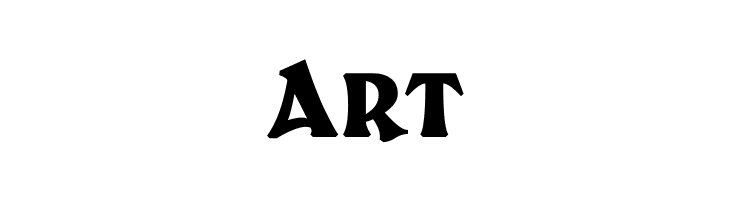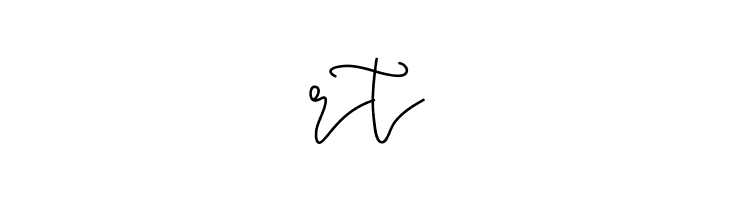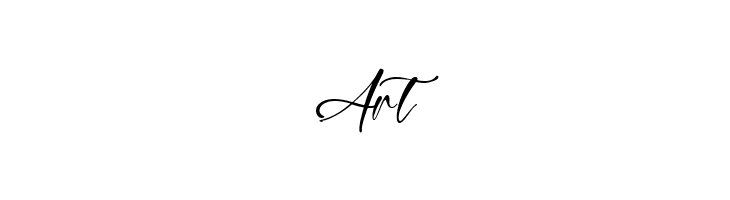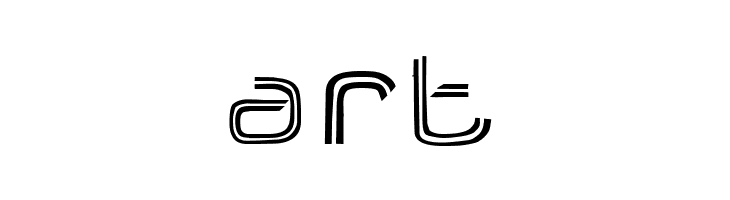
A bold, decorative blackletter style font with sharp, angular lines.
A cursive, elegant font with flowing strokes and a sophisticated style.
A futuristic, geometric font with a bold, layered design.
A bold and dynamic font with thick strokes and sharp edges, perfect for impactful designs.
A bold, angular serif font with a striking and aggressive design.
A dynamic and flowing script font with elegant cursive letterforms.
A jagged, shattered glass-style font with sharp, angular fragments.
Energetic, silhouette-based display font inspired by breakdancing poses.
A delicate and flowing monoline script font with a light, elegant style.